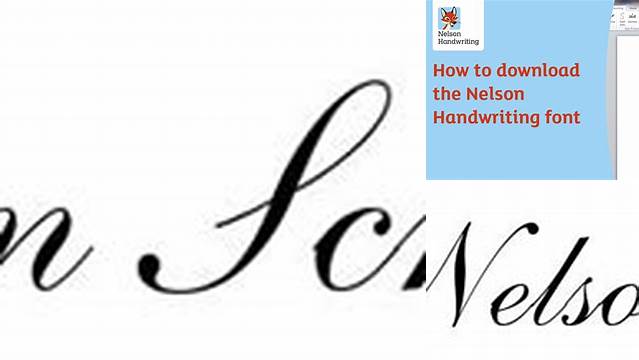
What is Nelson Cursive Font?
Let's kick things off by understanding what exactly the Nelson Cursive font is all about. This font is designed to mimic the handwriting style taught in the Nelson handwriting program, which emphasizes fluidity and legibility. It's not just any font; it's a way to bring a touch of classic, handwritten charm to your digital world. Think of it as your digital penmanship, but way more consistent!
Nelson Cursive font stands out because of its smooth connections between letters and its emphasis on proper letter formation. This makes it an excellent choice for educational materials, invitations, or any project where you want to evoke a sense of traditional handwriting. Plus, it’s super easy on the eyes, making reading a breeze. Why settle for plain old fonts when you can add a personal, handwritten feel to your work?
But wait, there’s more! Using Nelson Cursive font can also help improve your understanding of cursive handwriting. By seeing it in action, you can better grasp the nuances of each letter and how they connect. So, whether you're a teacher looking to enhance your lessons or a student wanting to refine your handwriting, this font is a fantastic tool. It’s like having a handwriting tutor right on your computer!